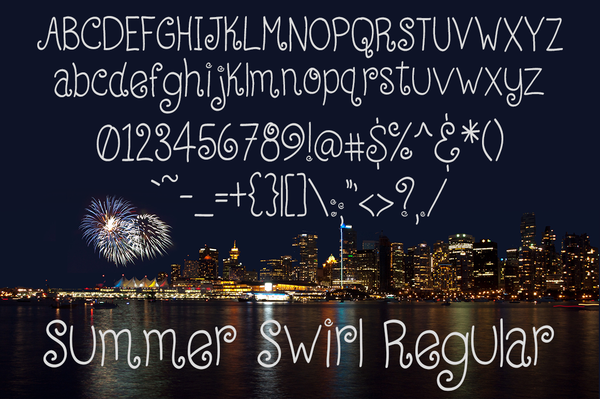
Summer Swirl Font
Introducing the Summer Swirl. A decidedly patriotic handwritten typeface with whimsical curls. Includes 30 bonus vectors and PNGs for all your new designs! As a bonus I have also included Super Sweet Font which pairs beautifully!